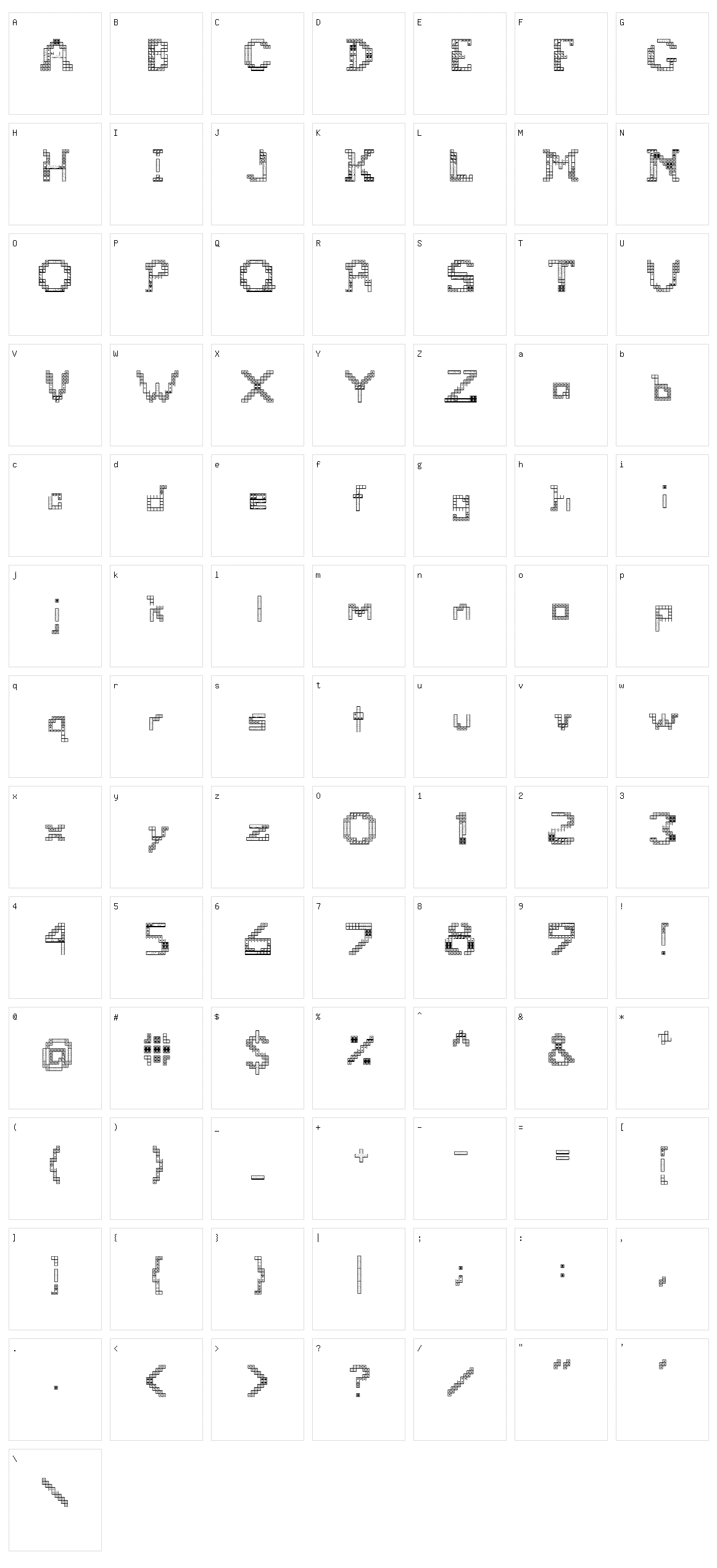
The free font Tetris 2 is carefully designed by Zombie Unicorn, showcasing a thoughtful balance of creativity and usability and falls under the Square font style. When you download the ZIP file, it contains only 149.35 KB of font files, making it lightweight and quick to download. Please review the license details below to understand permitted usage and distribution rights. If license information is not available, we recommend using this font for personal projects only or contacting the author directly for commercial usage permissions.